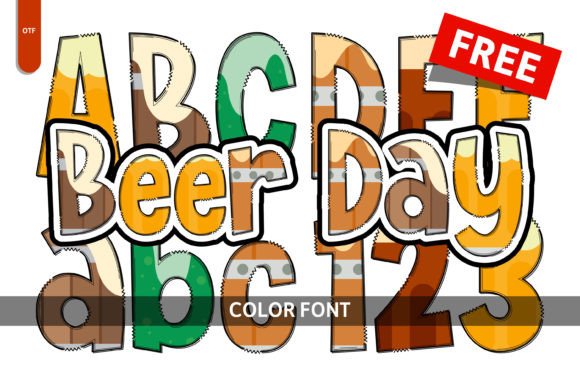
Beer Day: A Colorful Font for Playful Design Projects
When a design calls for personality, whimsy, and a touch of handcrafted charm, the right typeface becomes more than just letters—it becomes a central part of the story. Beer Day is a color font, specifically an OpenType-SVG typeface, that embodies this principle. It’s designed not for lengthy paragraphs of body text, but for moments where you need a headline, a title, or a logo to burst with character. Think of it as a visual equivalent of a playful tune or a vibrant illustration; its purpose is to capture attention and set a specific, joyful tone instantly.
Visually, Beer Day presents itself as a creative font with a distinctly artistic and approachable feel. The letterforms have the organic, slightly irregular quality of a handwritten font or script font, but with a clarity and structure that keeps it highly legible at display sizes. Its most defining feature is its color. Unlike traditional monochrome typefaces, Beer Day arrives with built-in color information, allowing each letter to render in multiple hues, gradients, and textures directly in compatible software. This isn't a font you apply a color swatch to; the color is part of its DNA, giving it an immediate, eye-catching presence that standard display font options often lack.
Where Beer Day Truly Shines: Practical Applications
Understanding a font's ideal environment is key to using it effectively. Beer Day isn't a workhorse serif font or a clean sans serif font for corporate reports. Its strength lies in specific, high-impact applications where personality trumps austerity.
Making Beer Day Work for Your Project
First, evaluate project fit. Is your brand voice or project tone playful, artistic, and informal? If the goal is to convey serious authority or minimalist elegance, Beer Day is likely the wrong tool. But if the aim is to evoke joy, creativity, and a handcrafted feel, it’s a strong candidate. Always view the font in context with your other design assets—photographs, illustrations, color palettes—to ensure harmony.
Second, test font pairings rigorously. A font this distinctive needs balance. It pairs best with clean, simple typefaces for supporting text. A straightforward sans serif font or a highly readable serif font for body copy will provide a calm foundation, allowing Beer Day’s headlines to command attention without creating visual chaos. Avoid pairing it with other ornate or complex fonts, which can lead to a cluttered, confusing layout.
Finally, consider readability and hierarchy. Because it is a color and display font, Beer Day should be reserved for headlines, logos, and short phrases—not for long sentences or paragraphs. Use it to establish a strong visual hierarchy, drawing the eye to the most important message. At large sizes, its details and colors are a feature. At small sizes, legibility can diminish, so always test it at the intended output size on your target medium, whether it's a printed poster or a mobile screen.
In the world of modern typography, having a toolkit that includes a versatile character like Beer Day allows you to tackle projects that demand more than just standard letterforms. It’s a specialized instrument for designers, marketers, and creators who need to communicate warmth, creativity, and fun directly through their type choices. When used thoughtfully and in the right context, it becomes a powerful component of your creative arsenal, helping you craft memorable and engaging visual stories.